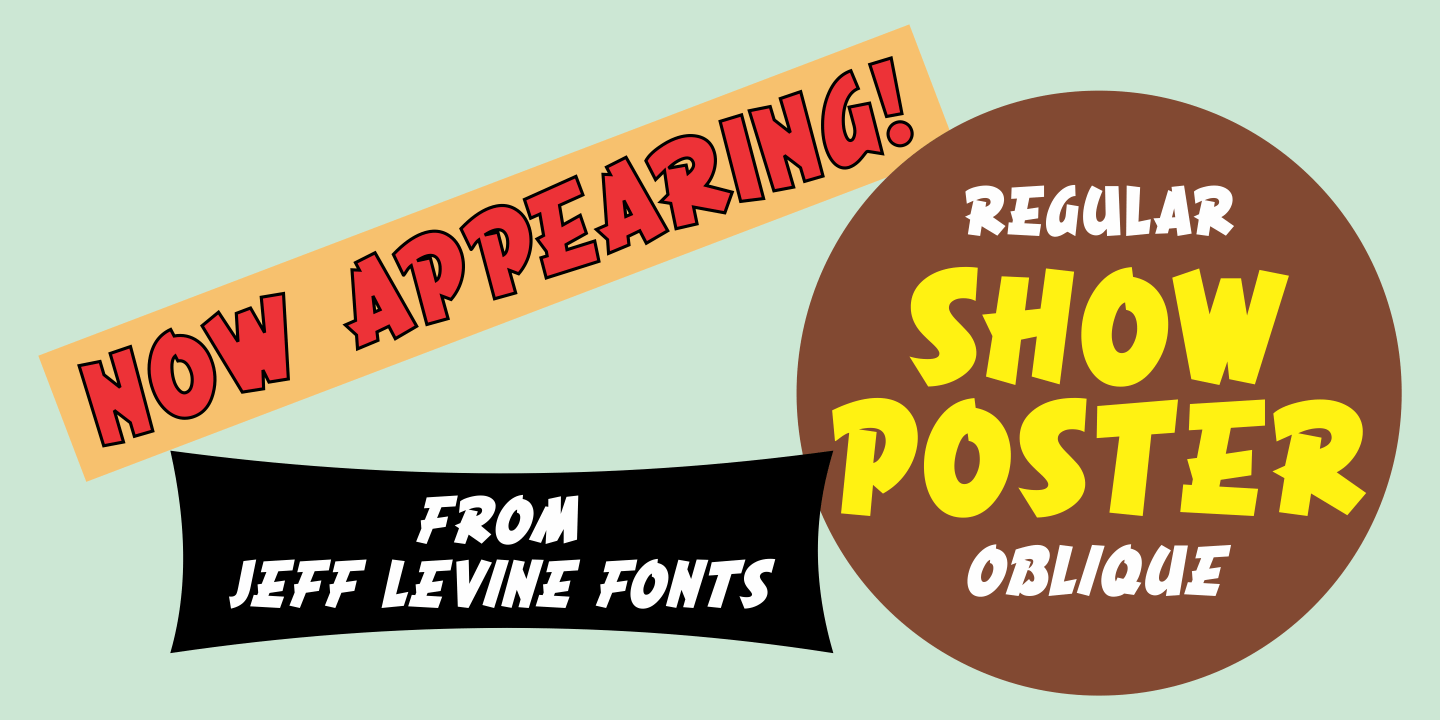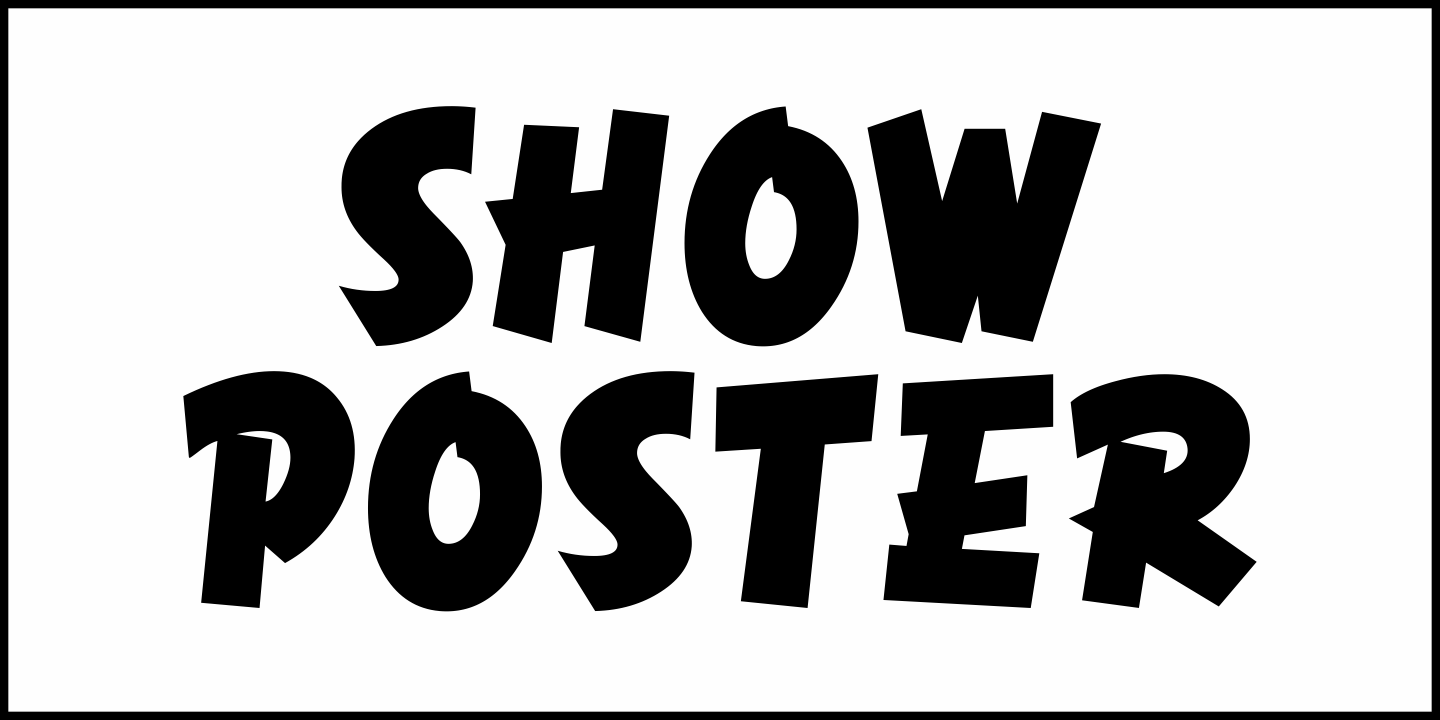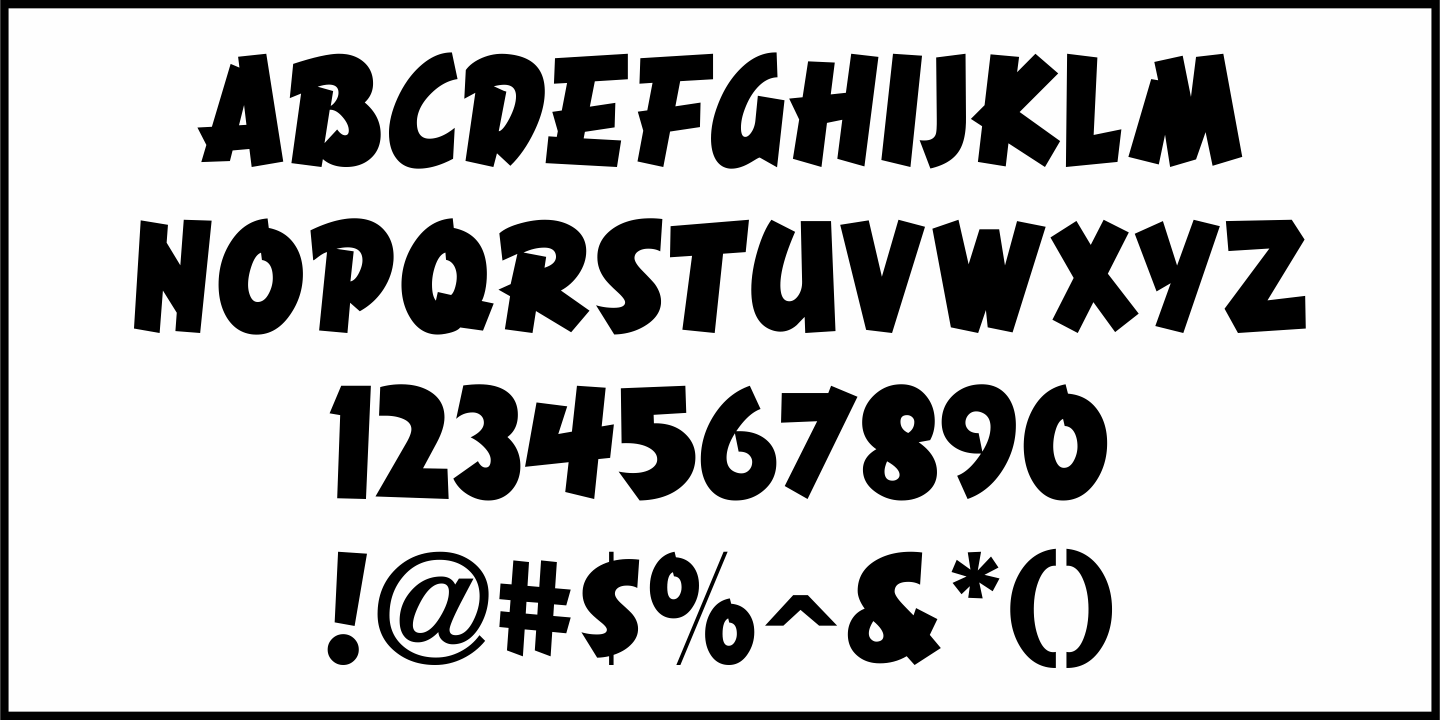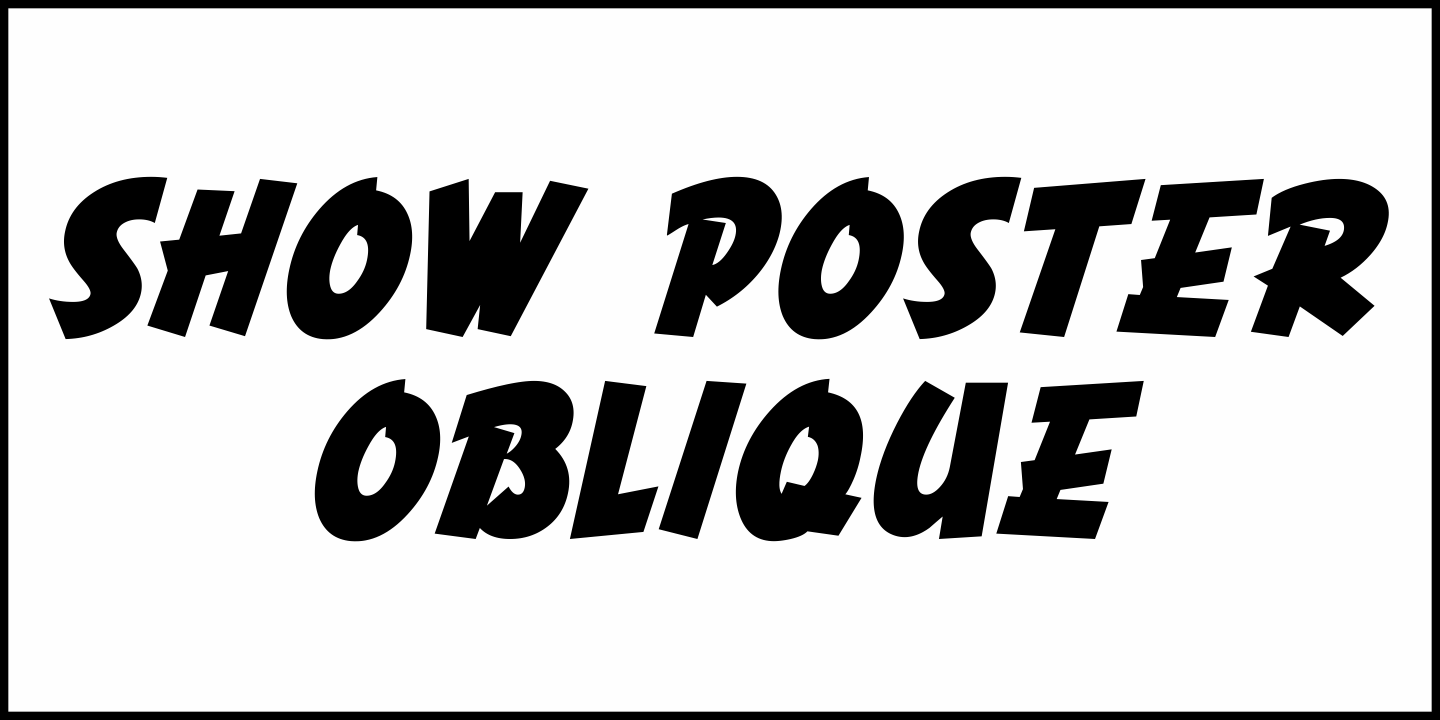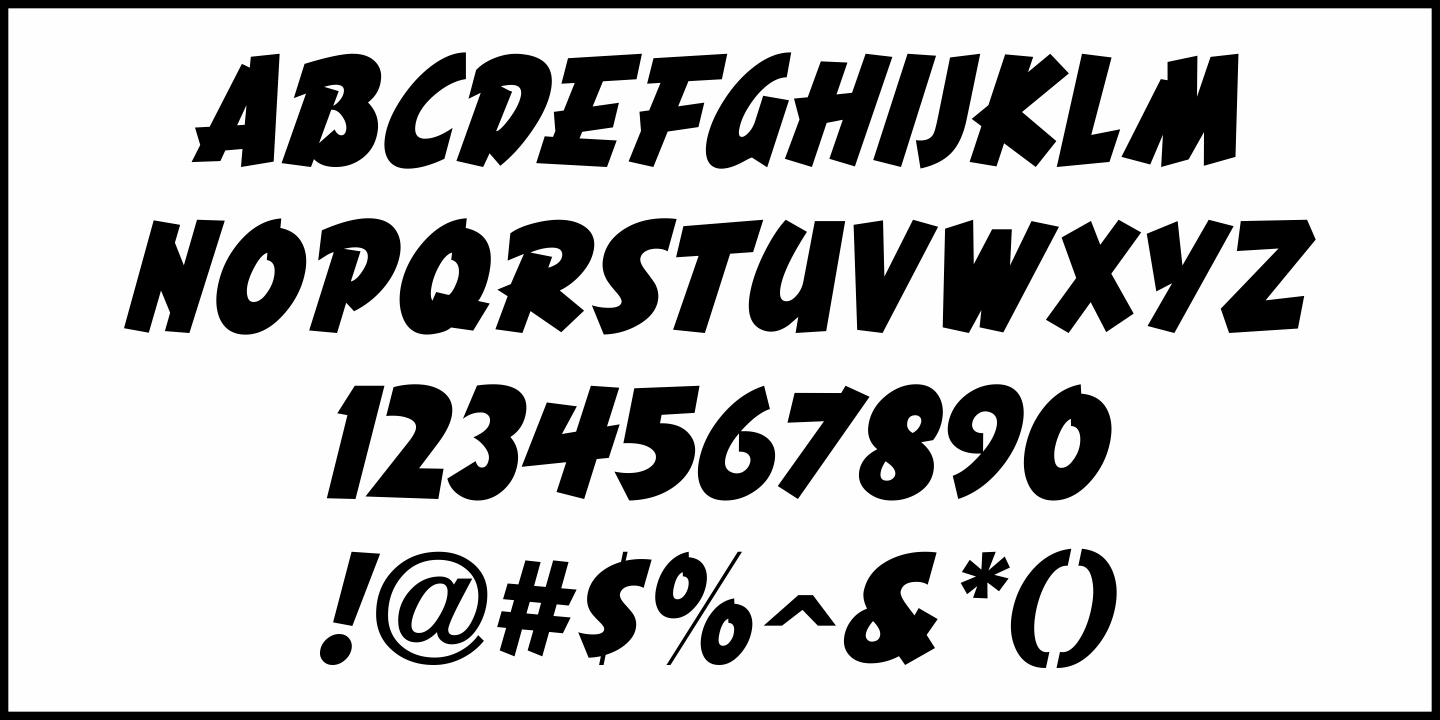
Show Poster
In the 1960 edition of Samuel Welo's 'Studio Handbook for Artists and Advertisers' is an example of poster lettering with the accompanying blurb 'call this Chrysler'.
This casual brushstroke design was slightly modified and then reworked into what is now Show Poster JNL and is now available in both regular and oblique versions.